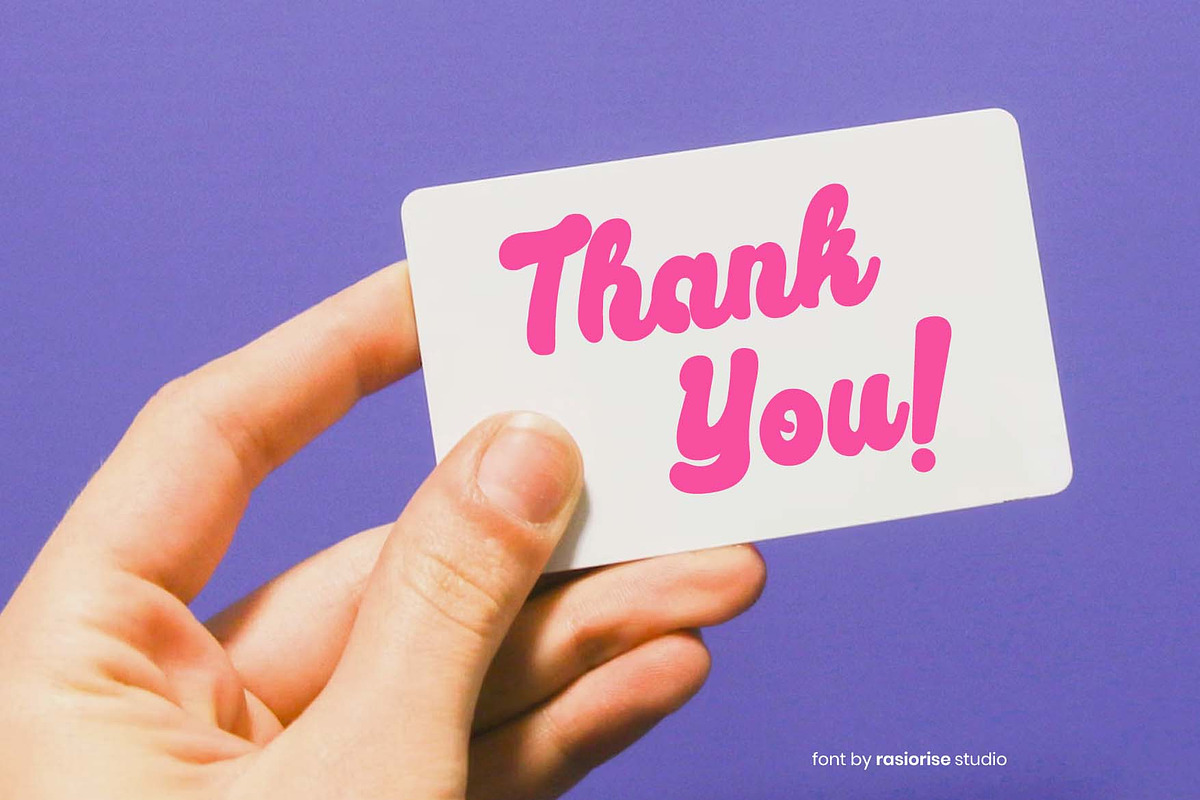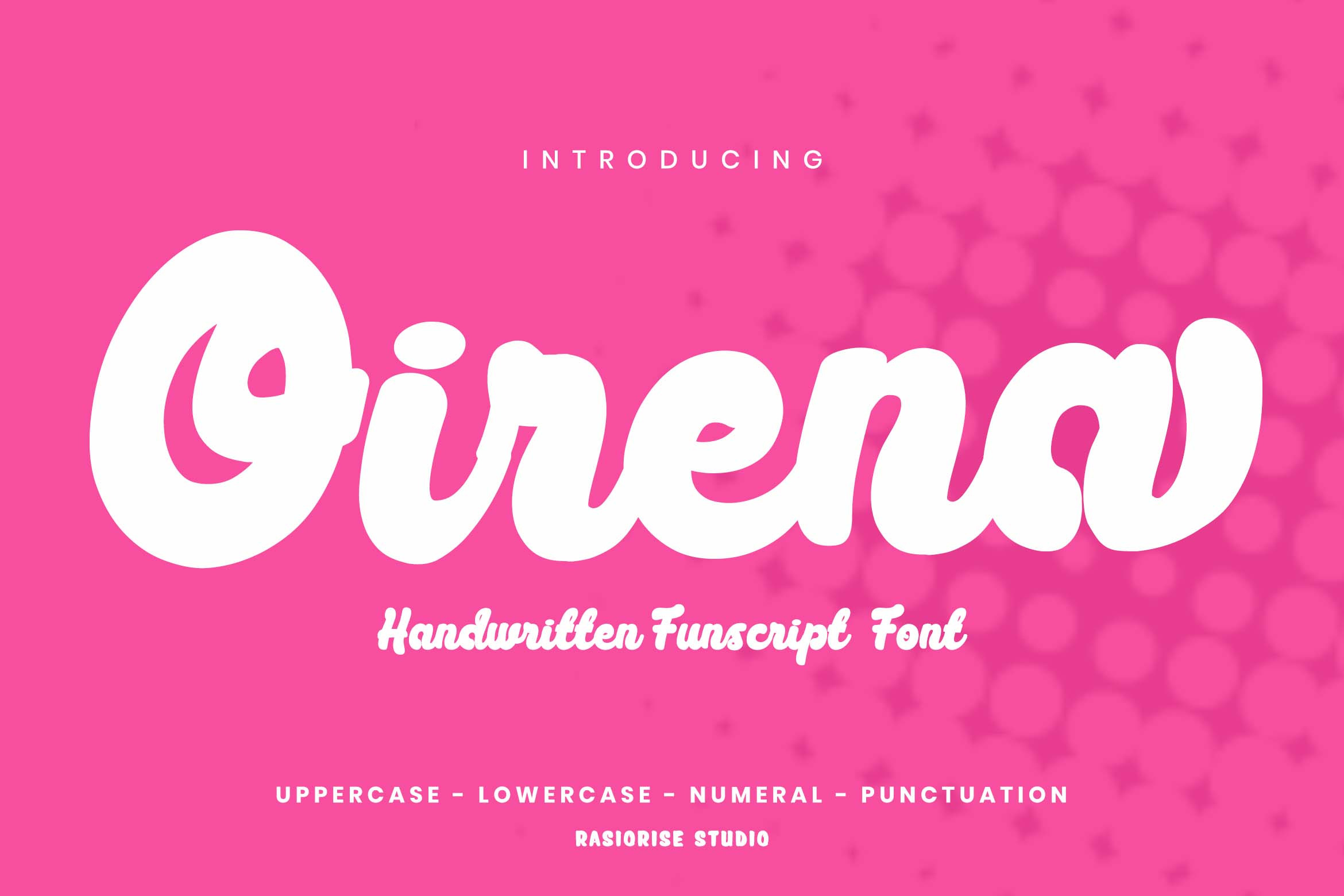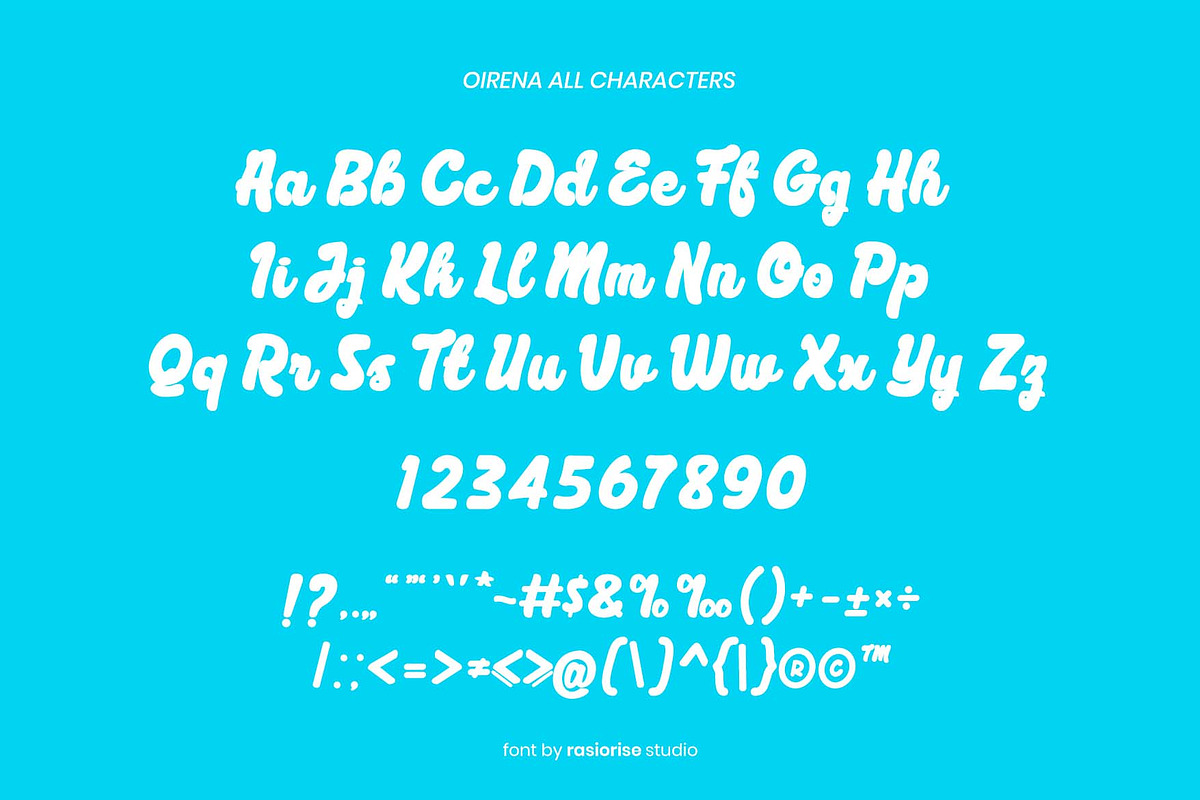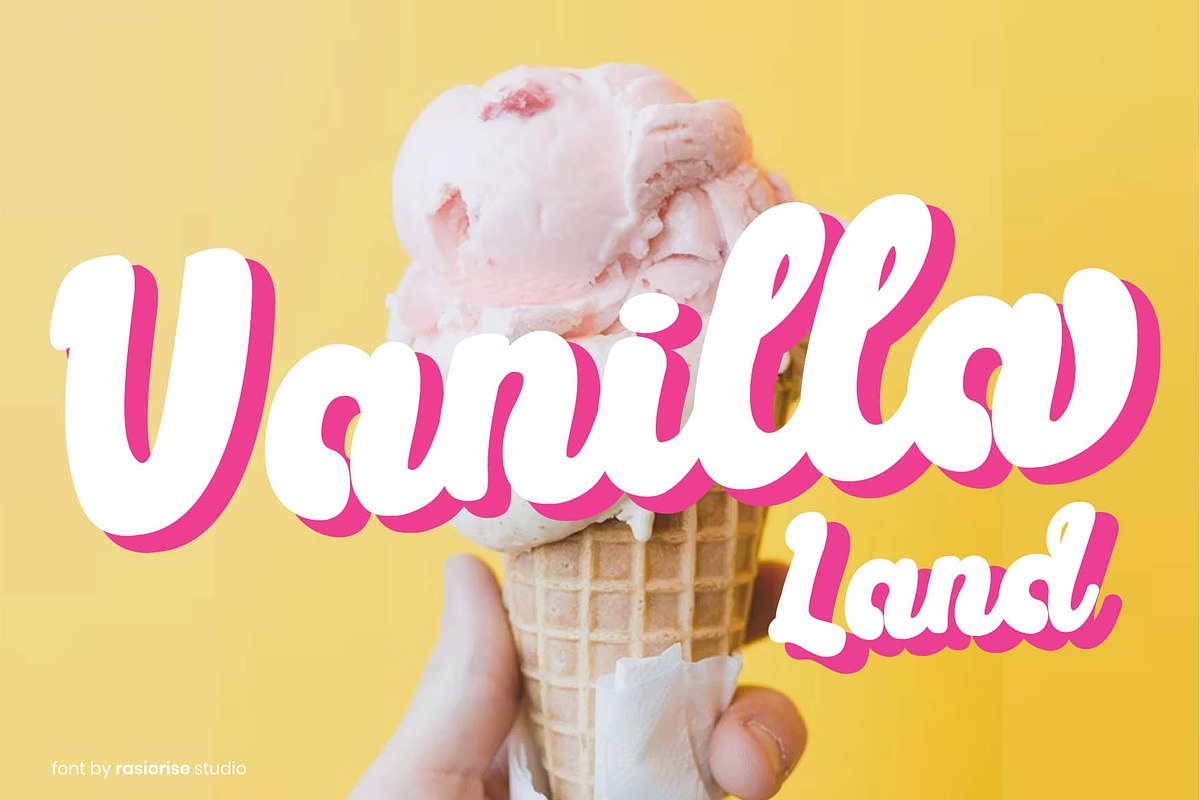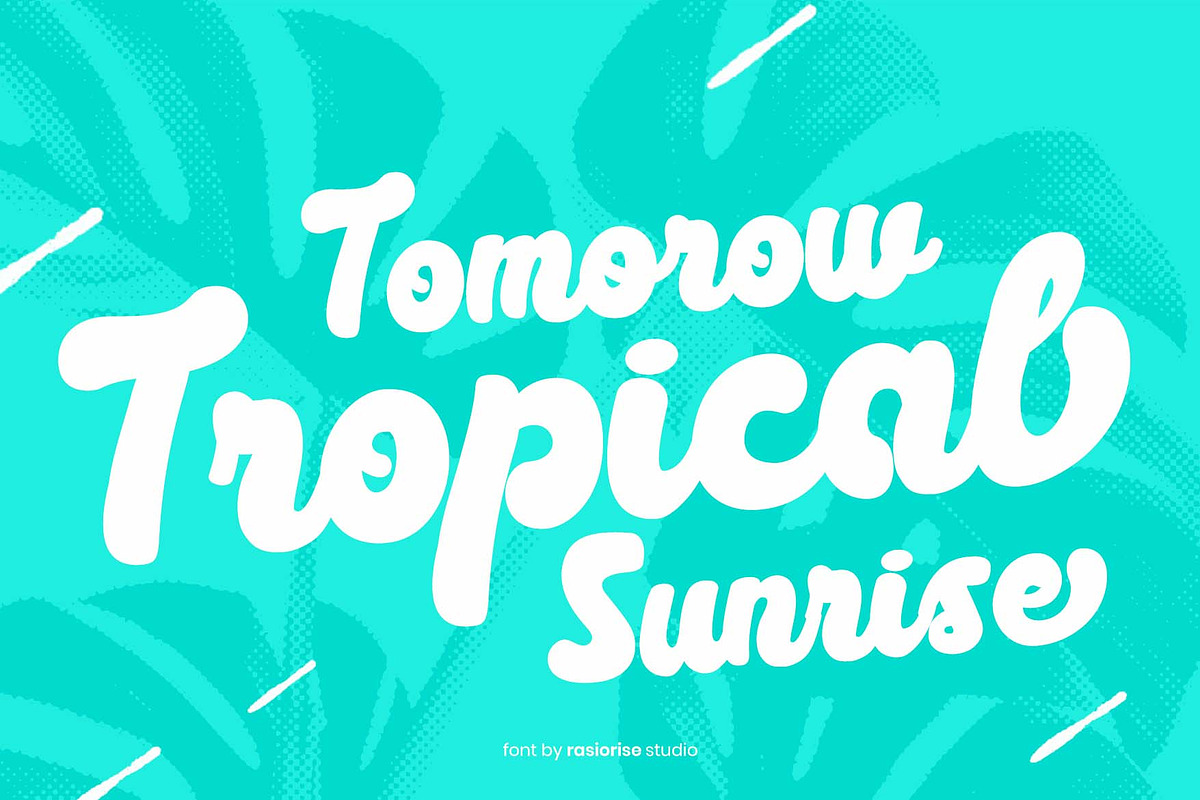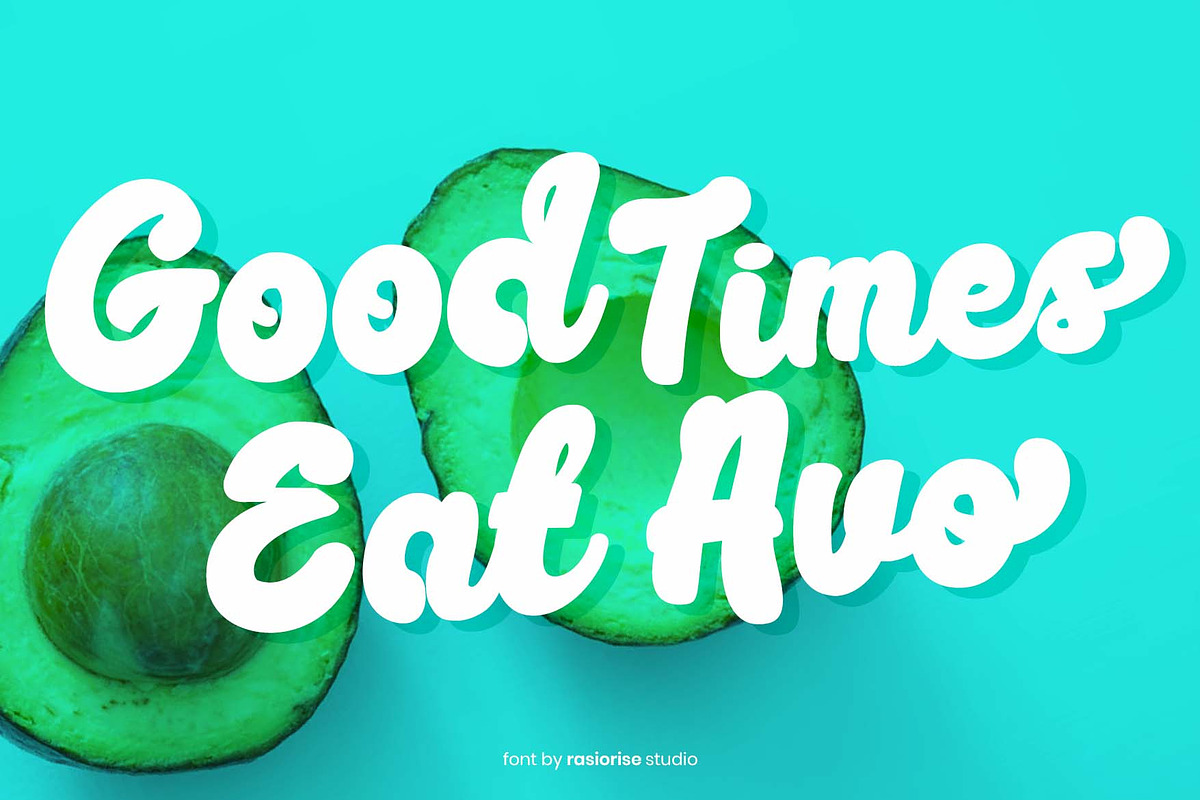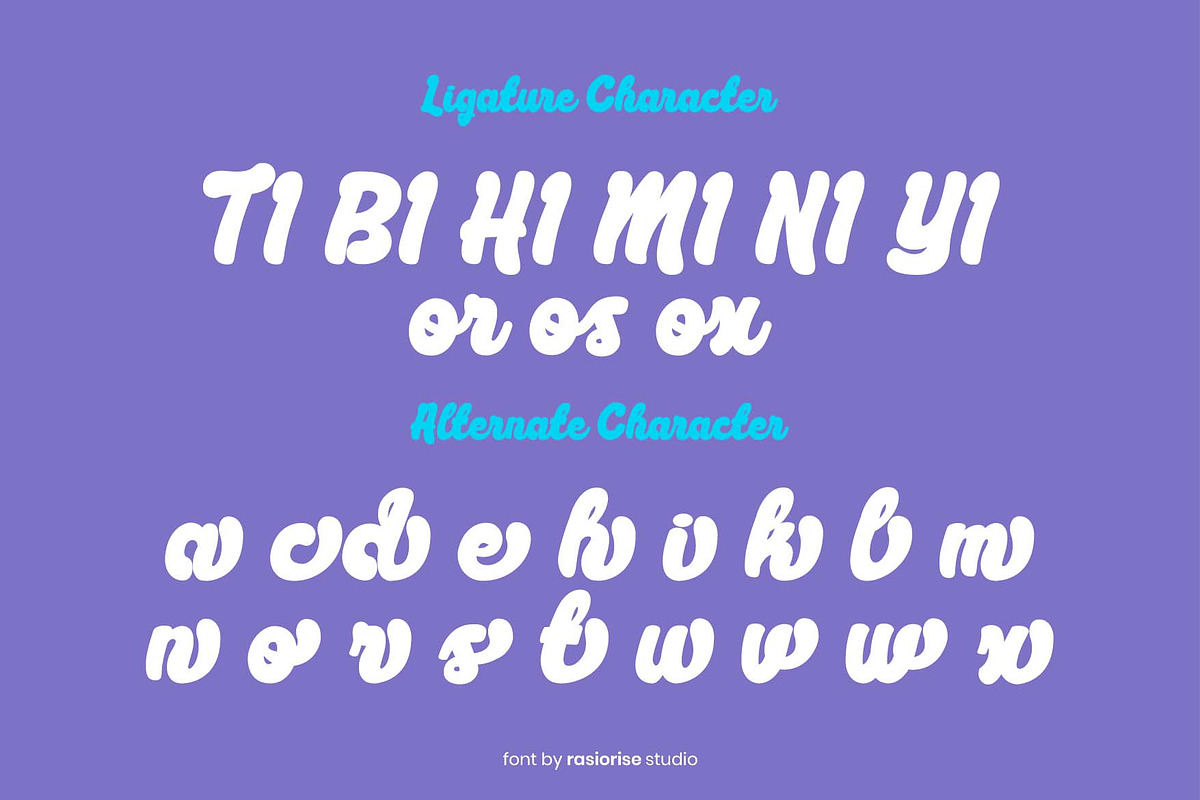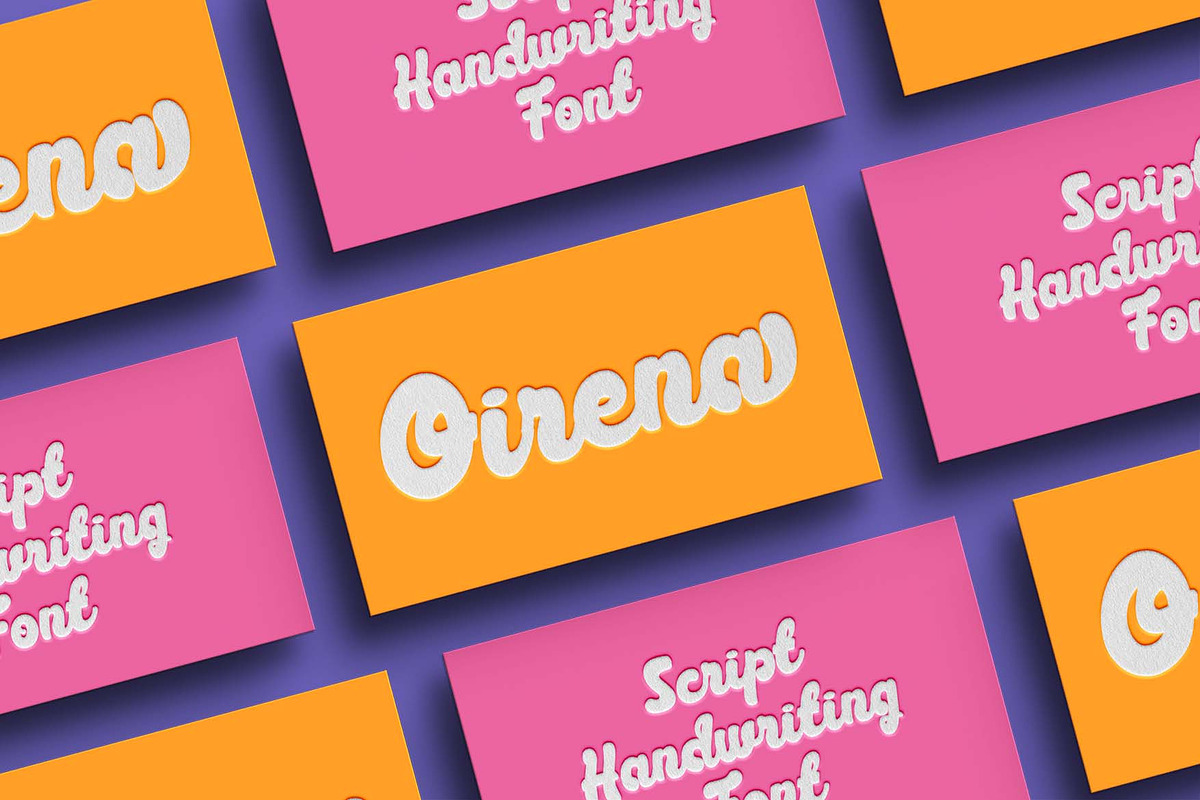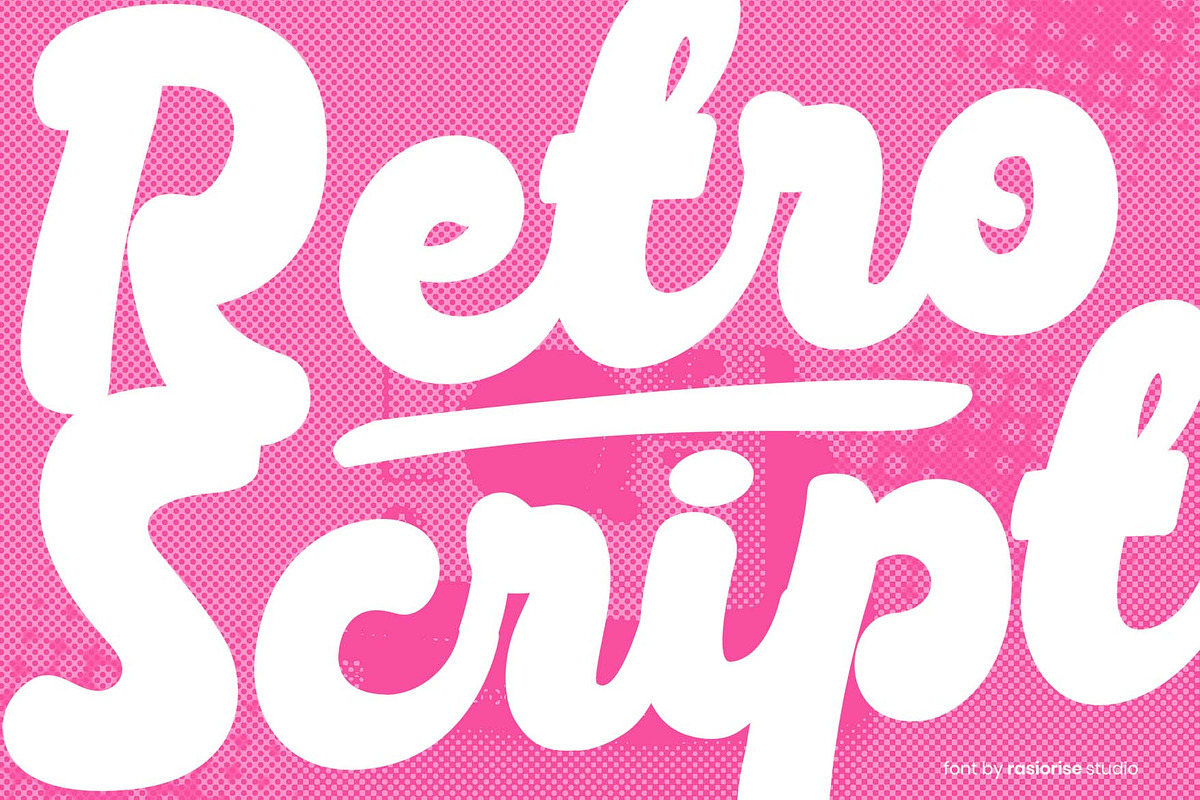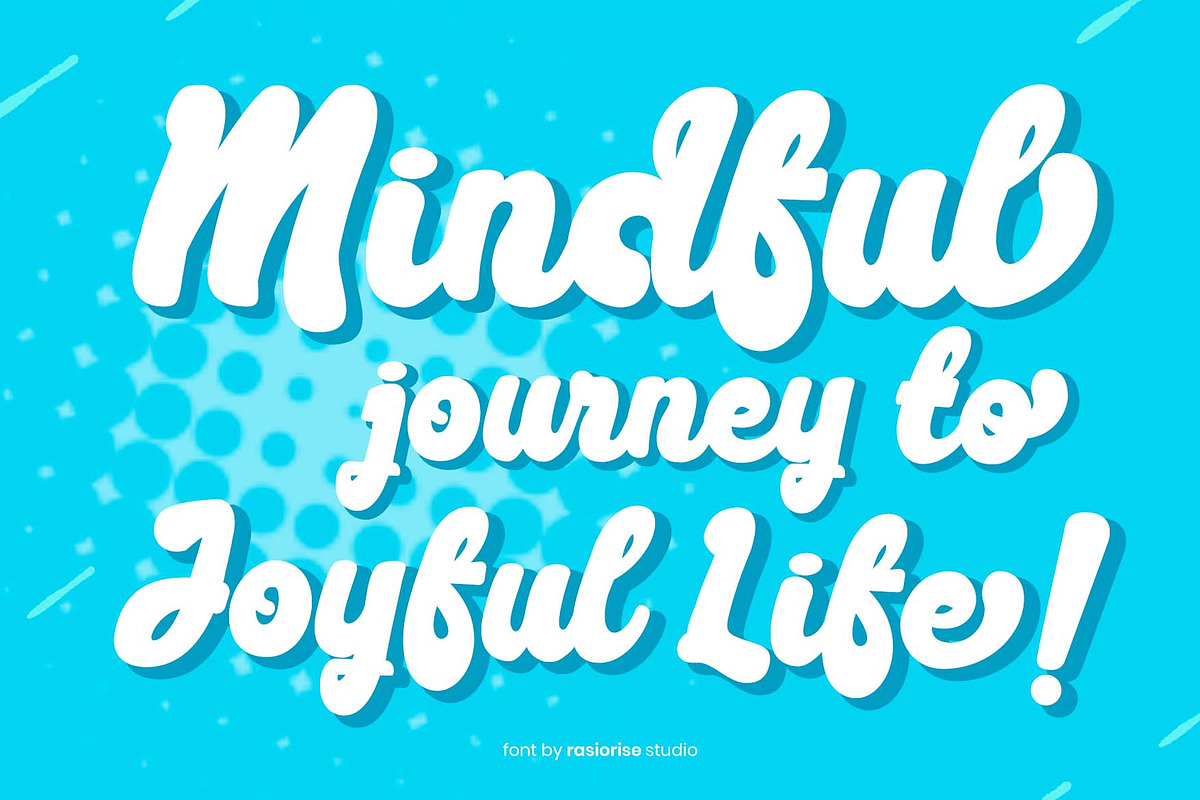
Oirena a Handwritten Funscript Font
Hello Everyone! Oirena has been released for those of you who are looking for a Handwritten Funscript style font, The font is inspired by the script font Style with a few combine to turn them into a bit of a playful and bold style. Unleash your great creativity with Oirena Script Font, perfect for used to any projects with easy-to-read character, playful and bold font for your project!.
Oirena Font very suitable for Logotype, Book Cover, Weeding Invitation, Gift Card, Gretting Card, Poster, Merchandise, Packaging Label, Badge/Emblem Logo and much more.